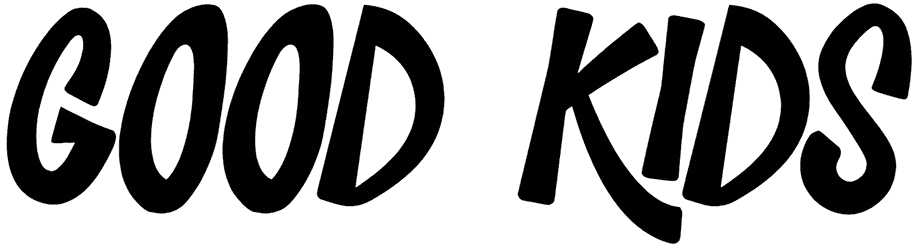
Funny Kid Font
The playful and fancy design of this comic font is on hand to bring out your typography with its fresh look. Invitation or greeting cards, headers, quotes, apparel design, posters, and any creative graphics are eager to combine with this Funny Kid to be more striking.
Although it misses just lowercase letters, can be a savior to pull any printed design out of the sameness with its happy sweet communication.